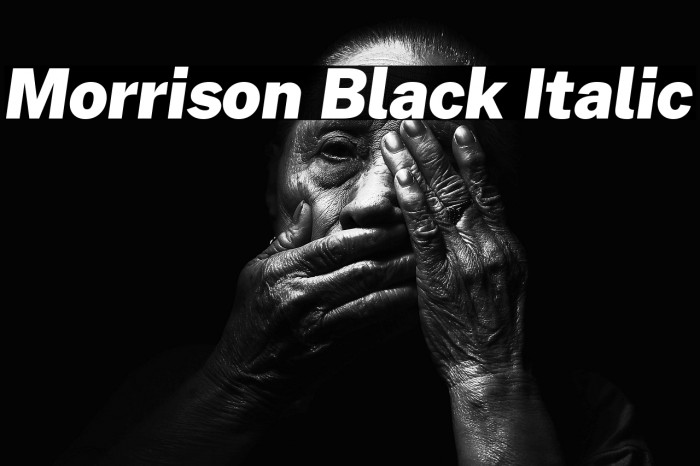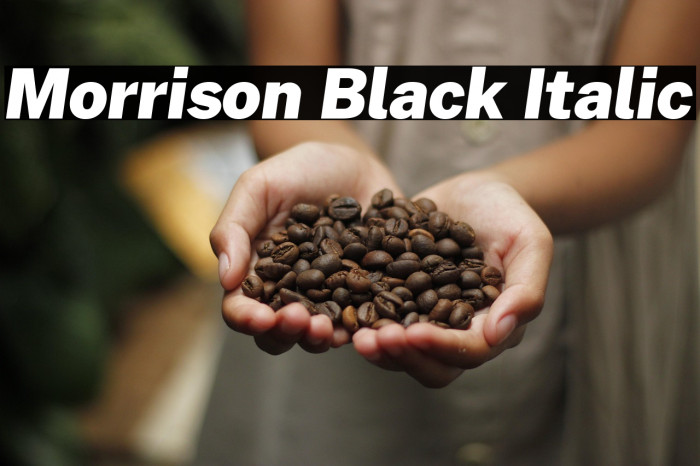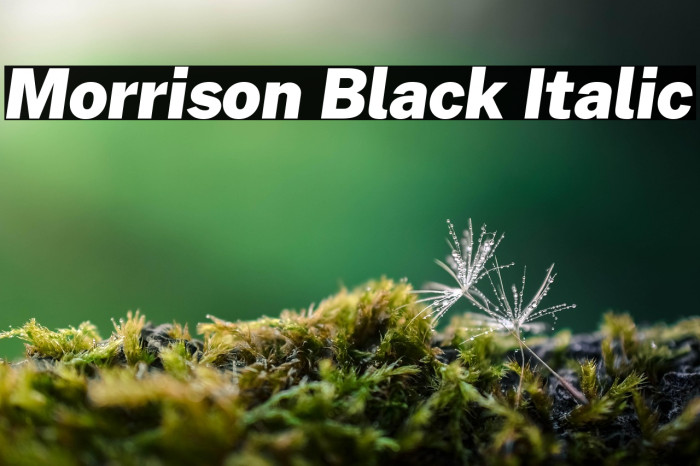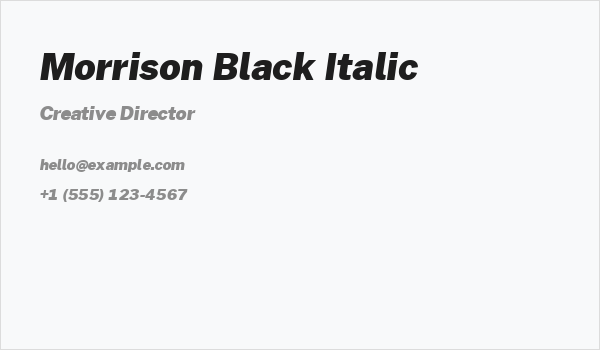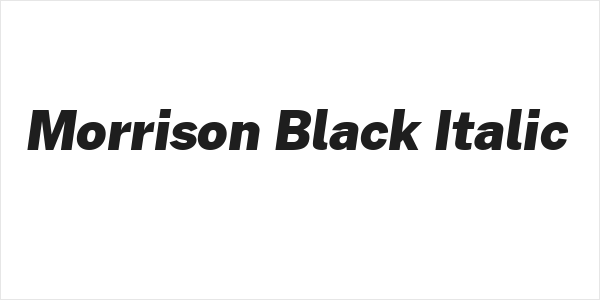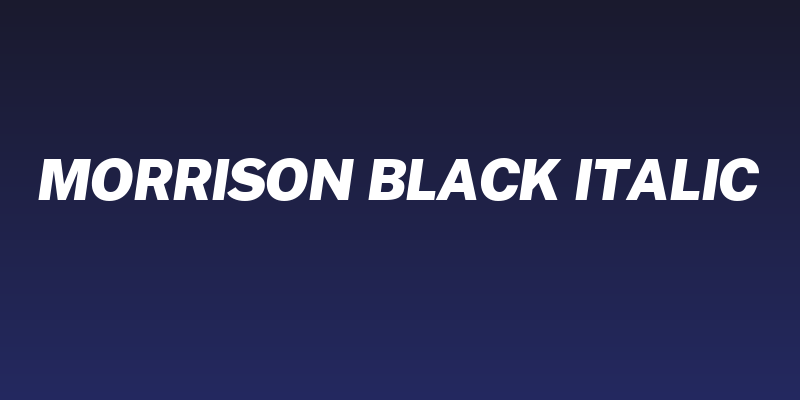
Morrison Black Italic Font
Morrison Black Italic Description
This font features a bold and italicized style, characterized by its strong presence and dynamic slant. The letters are thick and robust, providing a sense of authority and impact. The uppercase and lowercase letters maintain a consistent weight, ensuring readability and uniformity. The numbers and special characters are equally bold, making them stand out effectively. The italic angle adds a sense of motion and modernity, making it suitable for attention-grabbing designs.
| Proposed Projects | Ideal for headlines, posters, branding materials, and any design requiring a bold statement. |